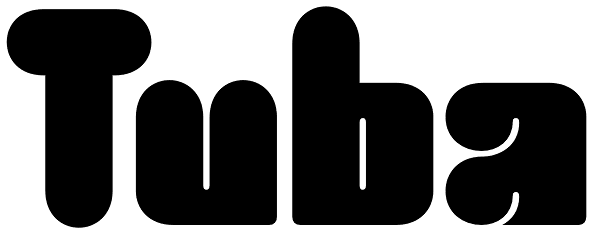
Tuba
Initially commissioned in the summer of 2009 for a popular North American ice cream parlor chain we cannot name, Tuba started with a reconceptualization of a somewhat flawed '72 alphabet idea by Swiss graphic designer Erwin Poell. During the...